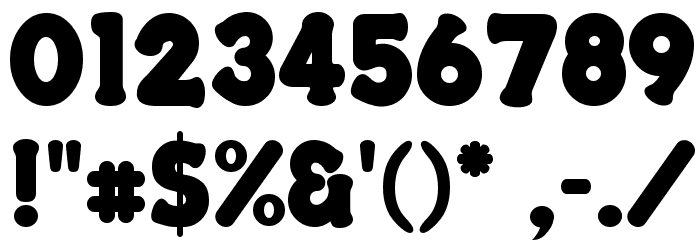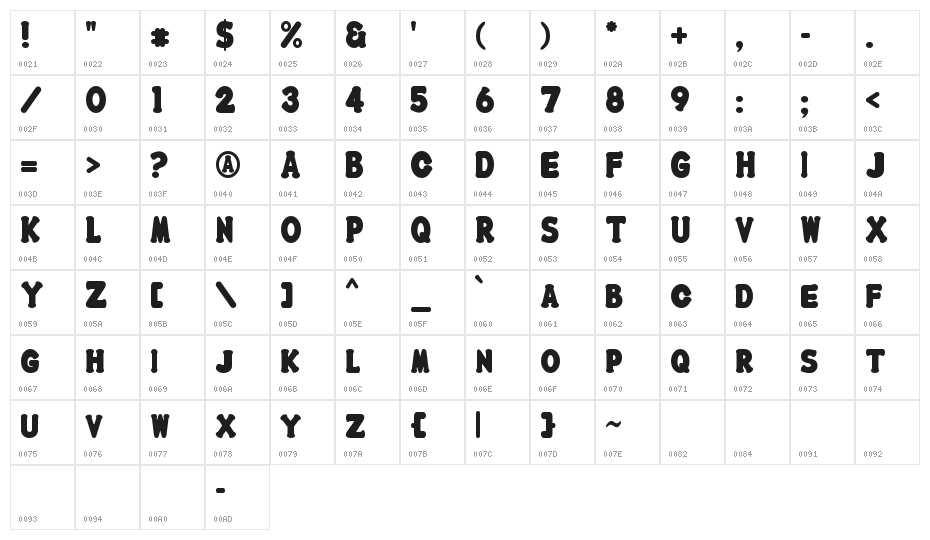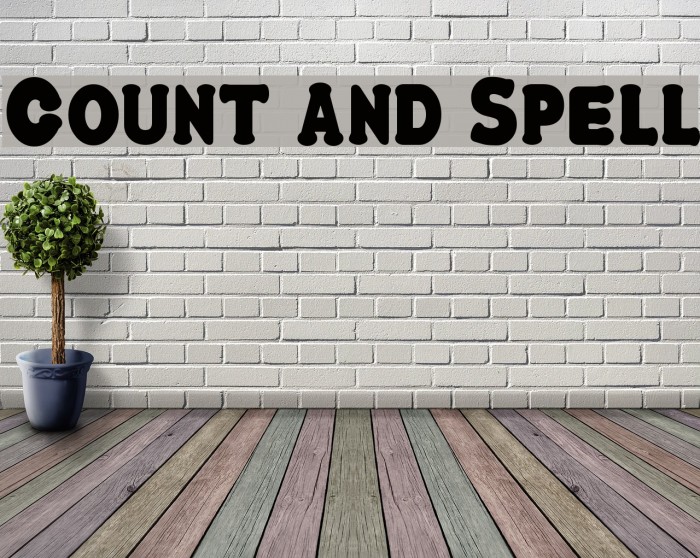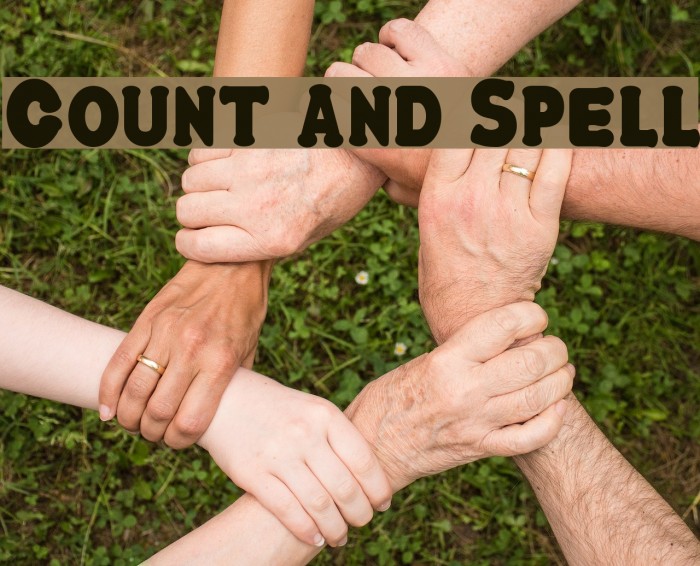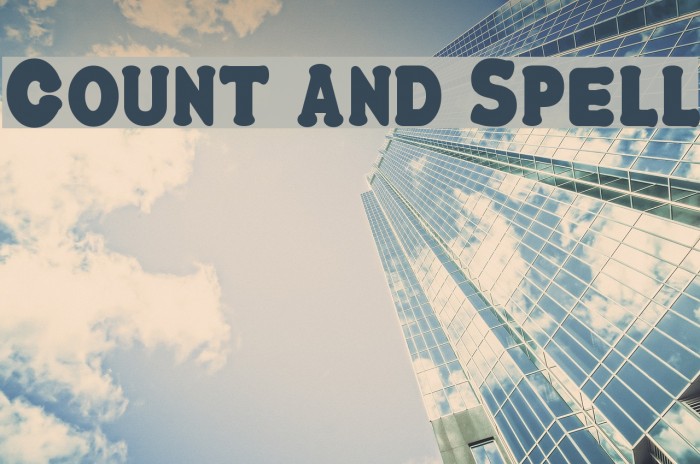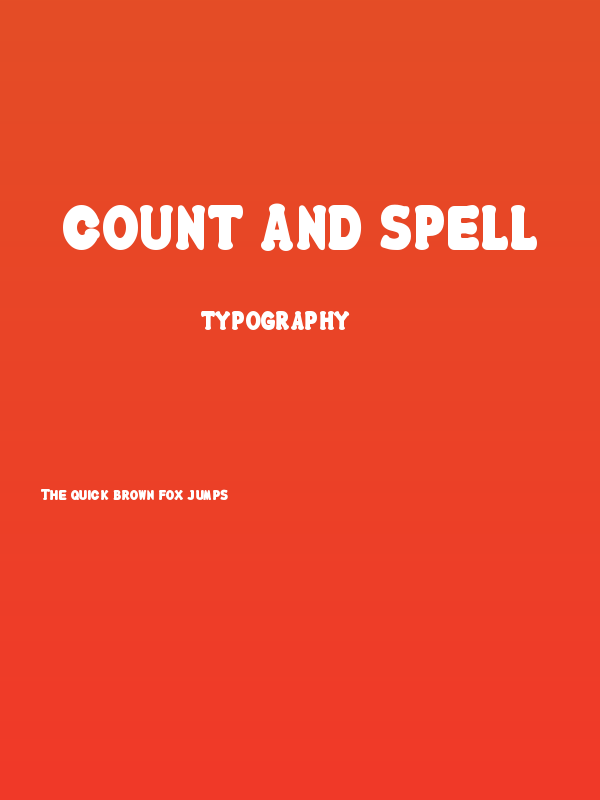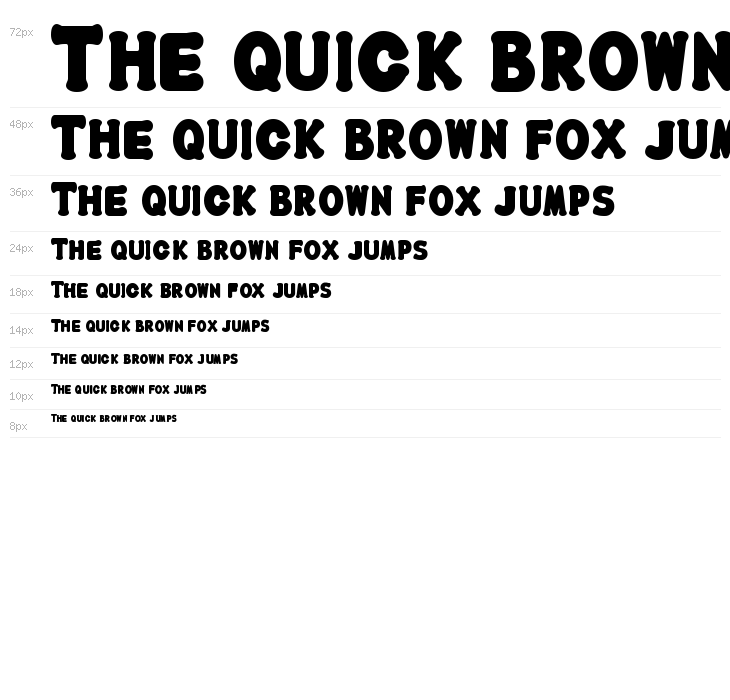
Count and Spell Font
Count and Spell Description
This font features bold, rounded characters with a playful and whimsical style. The letters are thick and have a bubbly appearance, making them stand out with a strong presence. The strokes are consistent in width, contributing to a uniform look across all characters. The rounded edges and lack of sharp angles give it a friendly and approachable feel. This font is ideal for designs that aim to convey fun and creativity, such as children's books, playful branding, or event posters. The numbers and special characters maintain the same rounded and bold characteristics, ensuring consistency throughout any text.